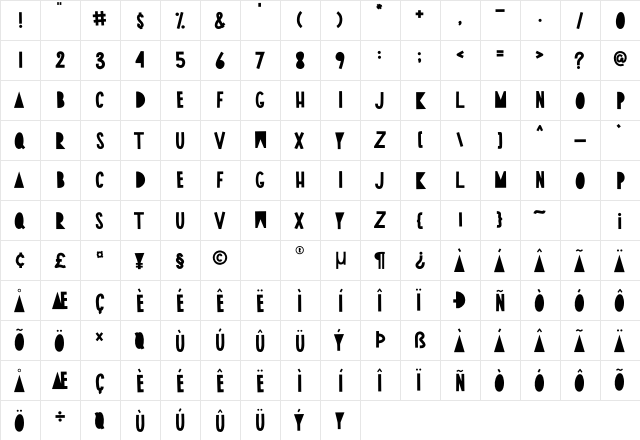
Goes To Japan Regular
| Designer | The Docallisme |
Design Context for Goes To Japan Typeface
Goes To Japan is a composed and adaptable typeface that performs quietly and consistently across a wide range of design contexts.